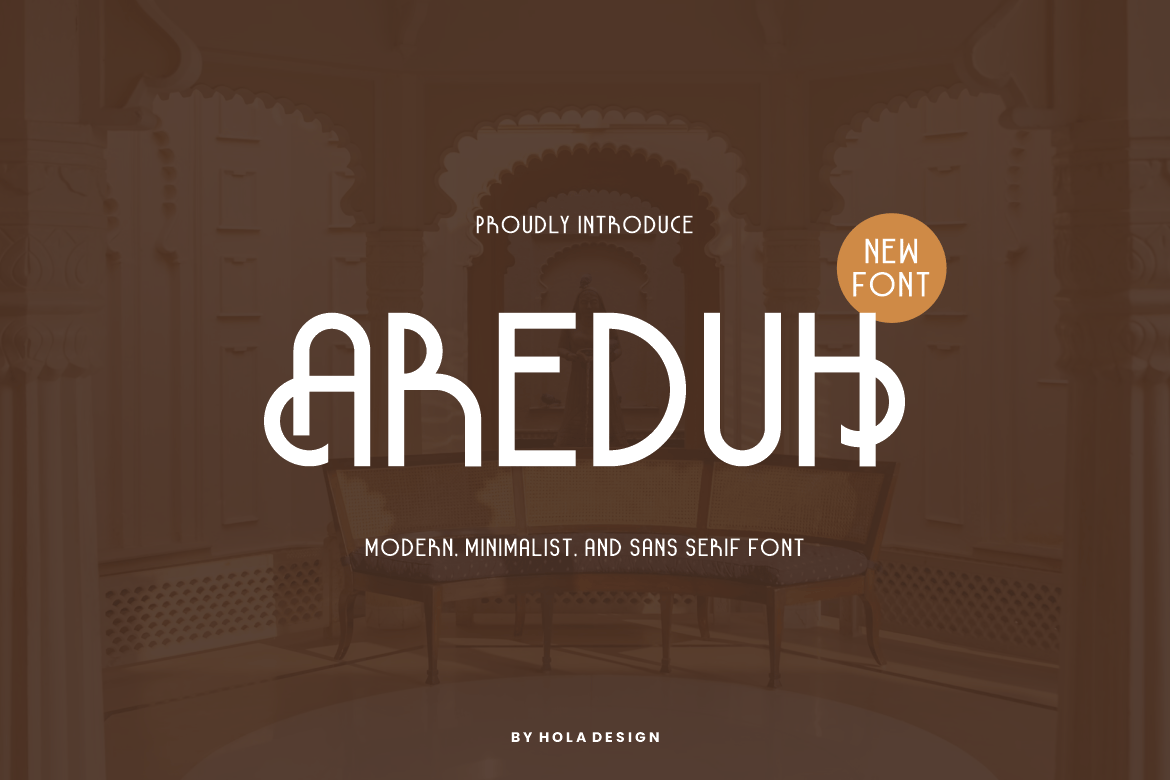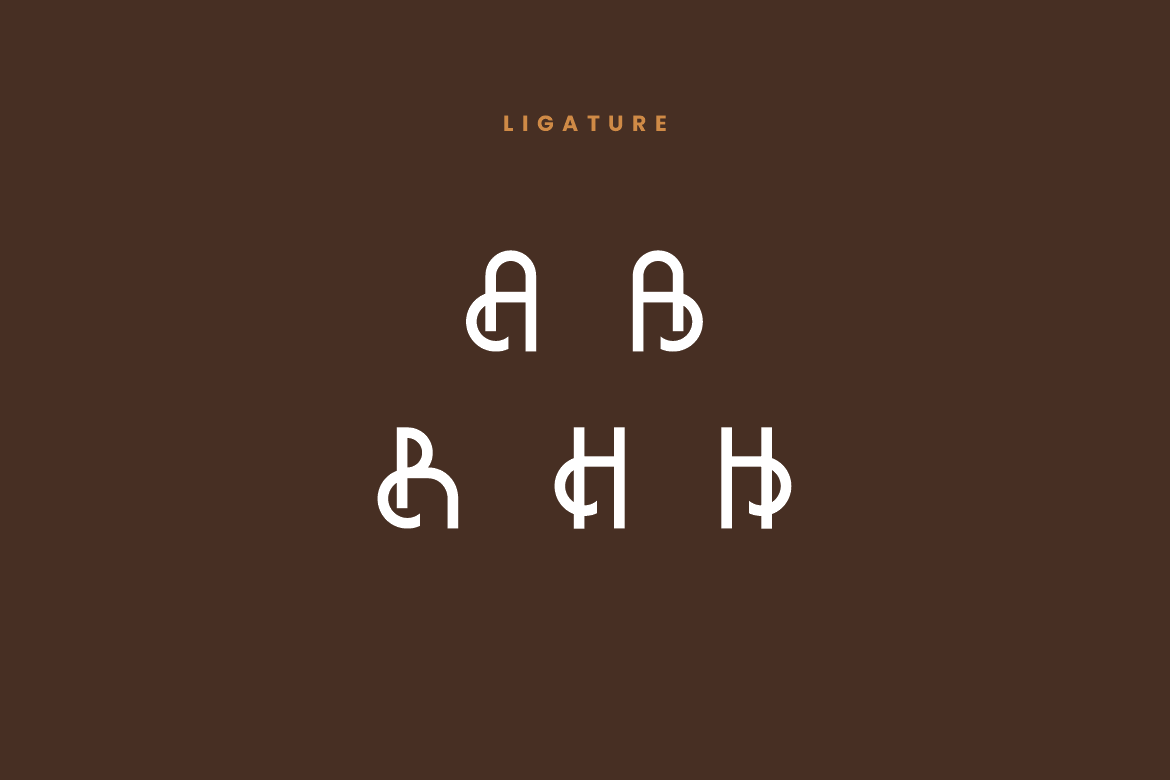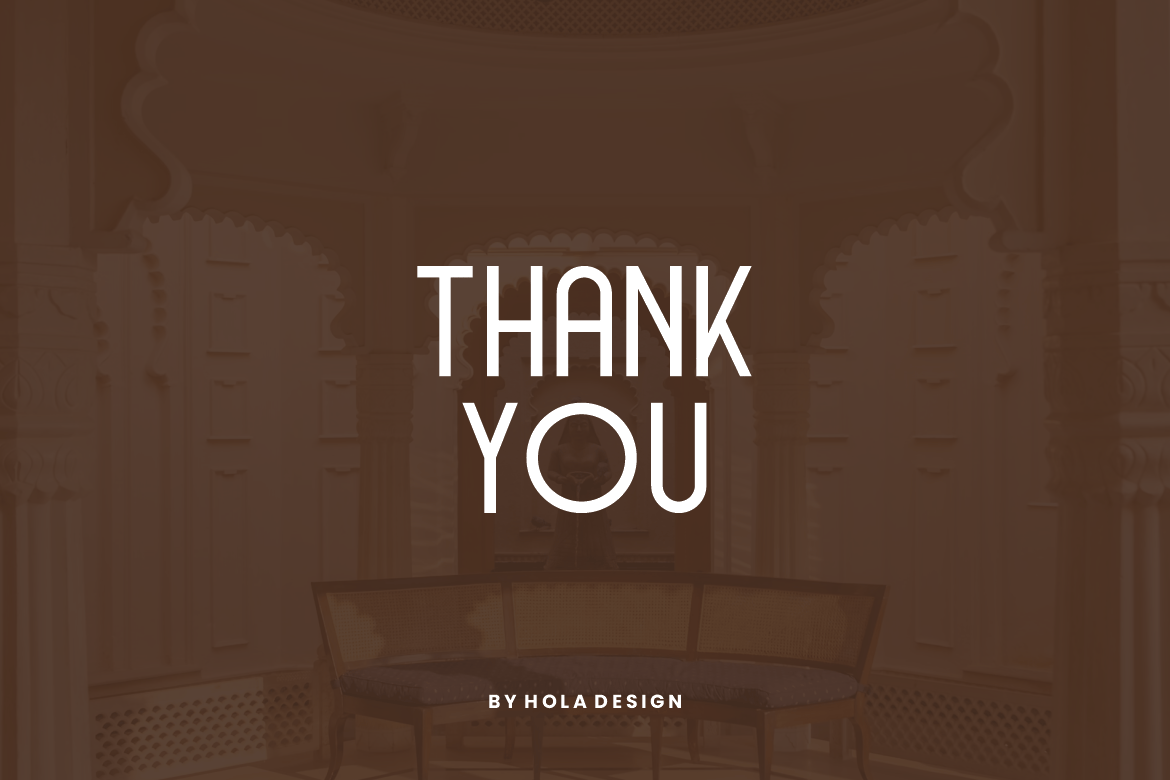
Areduh Minimalist Font
Areduh Minimalist Font Font is unique . Ready to use for your design like labeling, movie sceen, poster, movie title, gigs, album covers, logos, and much more.